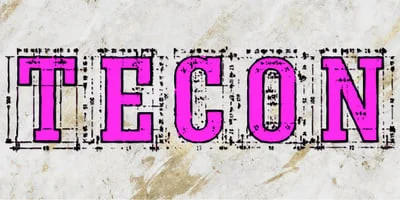
Tecon Font
Tecon Font is ideal for tech startup branding, engineering company logos, construction industry materials, industrial design projects, architectural blueprints, technical manuals, manufacturing documentation, and modern infrastructure presentations. This precision-engineered typeface brings technical excellence and industrial strength to any design project requiring professional engineering aesthetics and structural reliability.
What makes Tecon Font exciting is its perfect fusion of technical precision with contemporary design principles that captures the essence of modern engineering and industrial innovation. The systematically constructed letterforms feature clean geometric angles and optimal structural balance that create an unmistakably professional appearance. Each character reflects meticulous engineering standards, making it the ideal choice for companies that build, design, and innovate in technical fields.
The Tecon Font family typically includes multiple weights from light to bold, complete with uppercase and lowercase letters, numbers, punctuation marks, and technical symbols. Many versions feature additional engineering-inspired characters, measurement units, and specialized symbols that enhance the technical aesthetic and provide functionality for professional documentation and industrial applications.
Whether you're developing technical consulting brands or creating engineering project materials, Tecon Font offers unmatched precision and industrial authority. This professional typography choice transforms technical content into compelling presentations that resonate with engineering professionals and technical decision-makers. The font's exceptional clarity ensures perfect performance across complex technical documents while maintaining its distinctive engineering character that makes every design project feel like a blueprint for innovation and technical excellence in modern industrial applications.